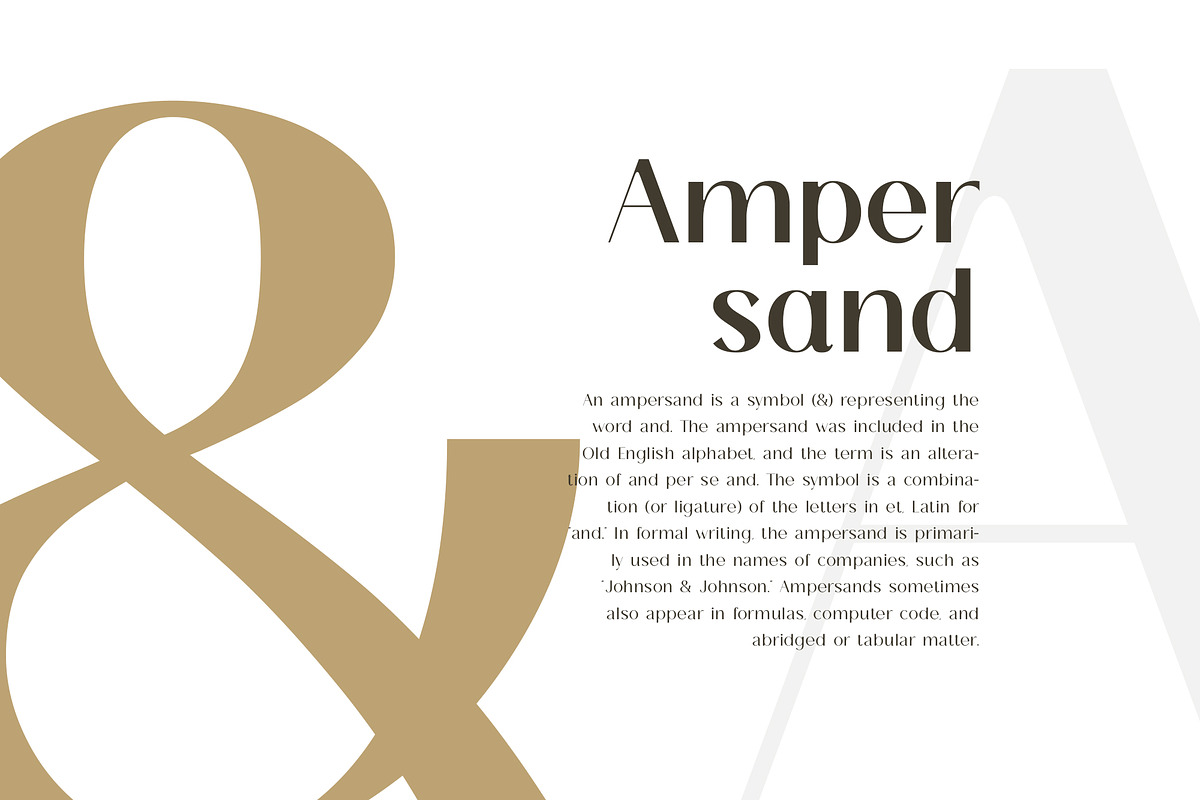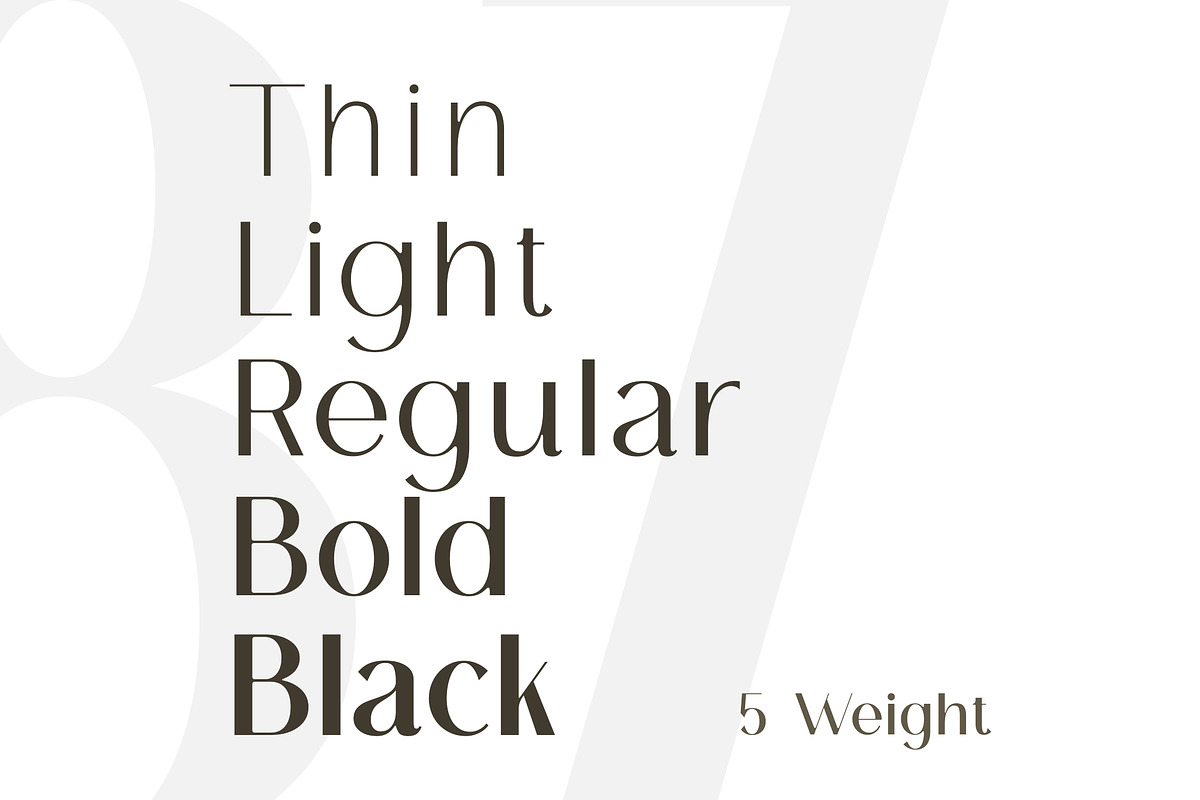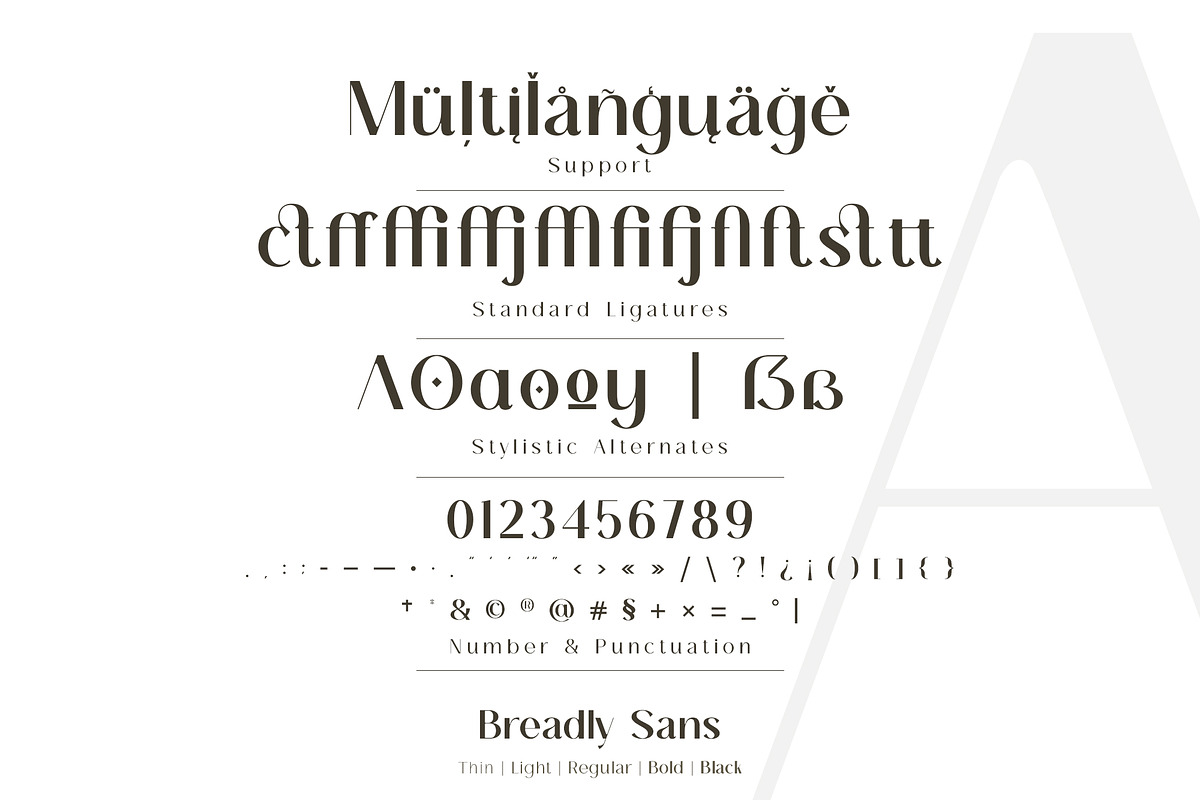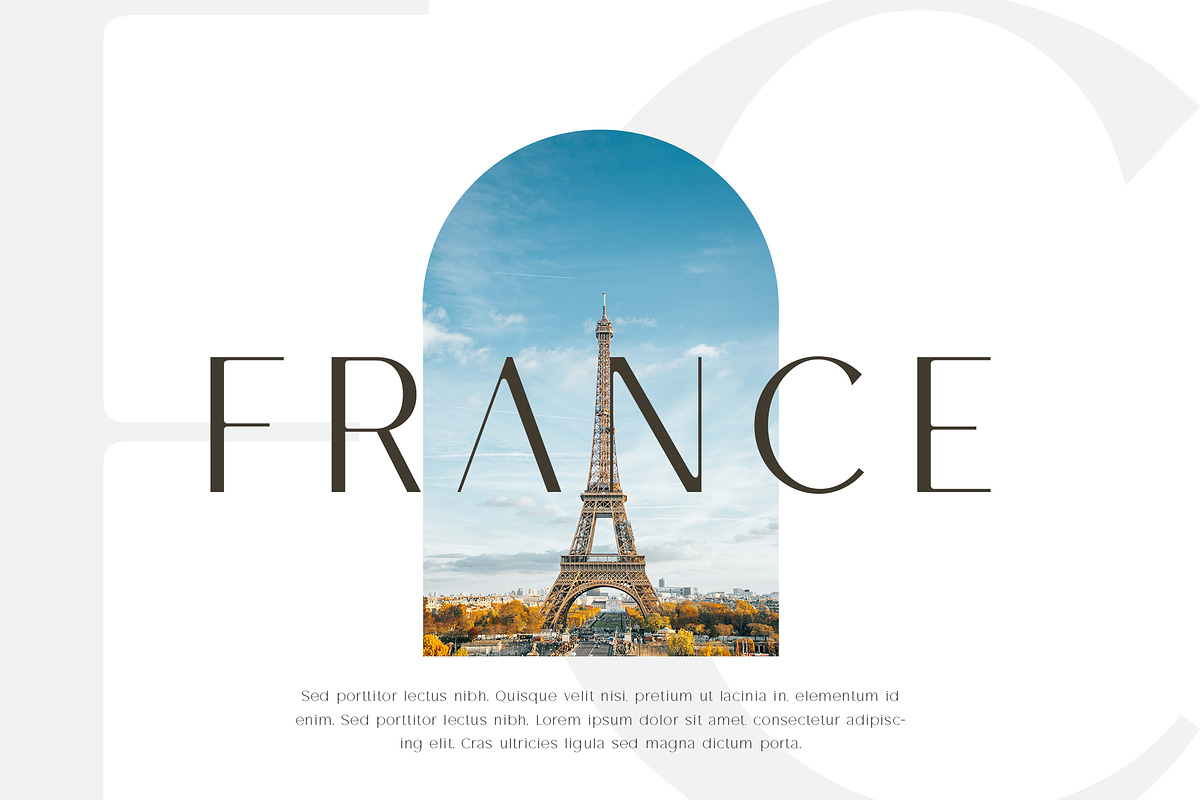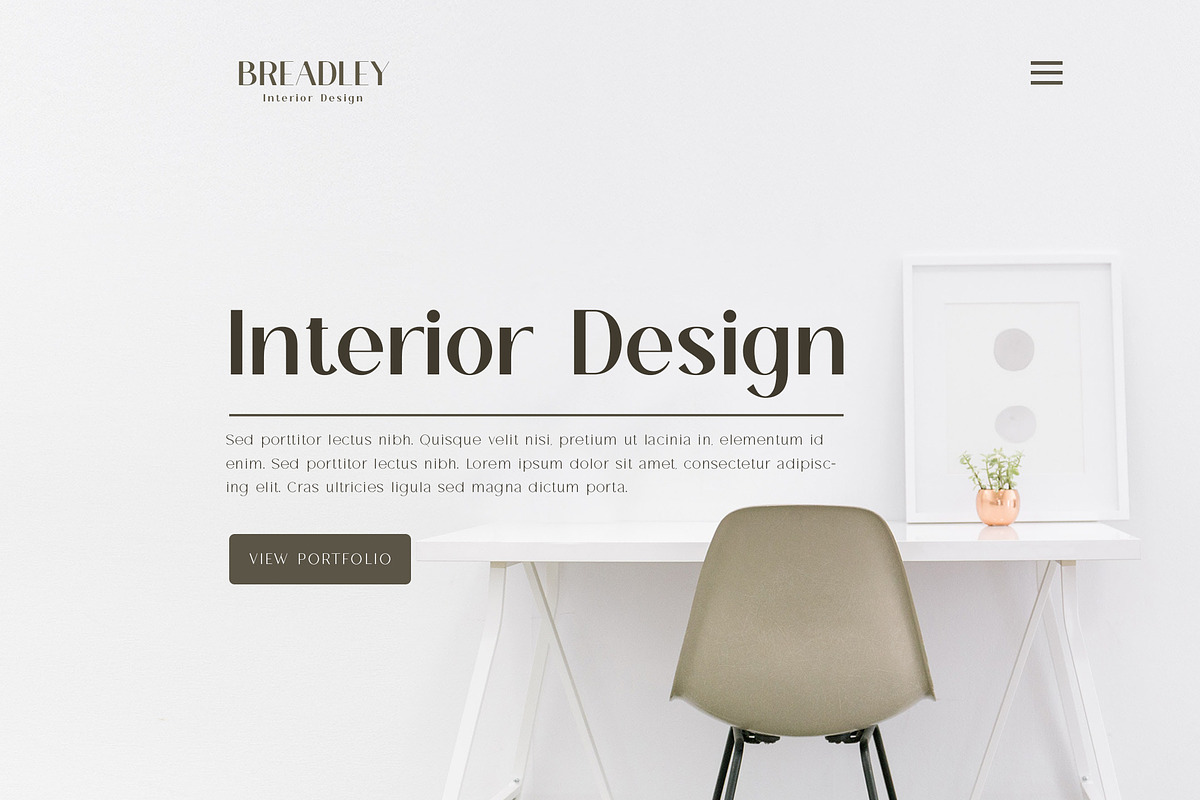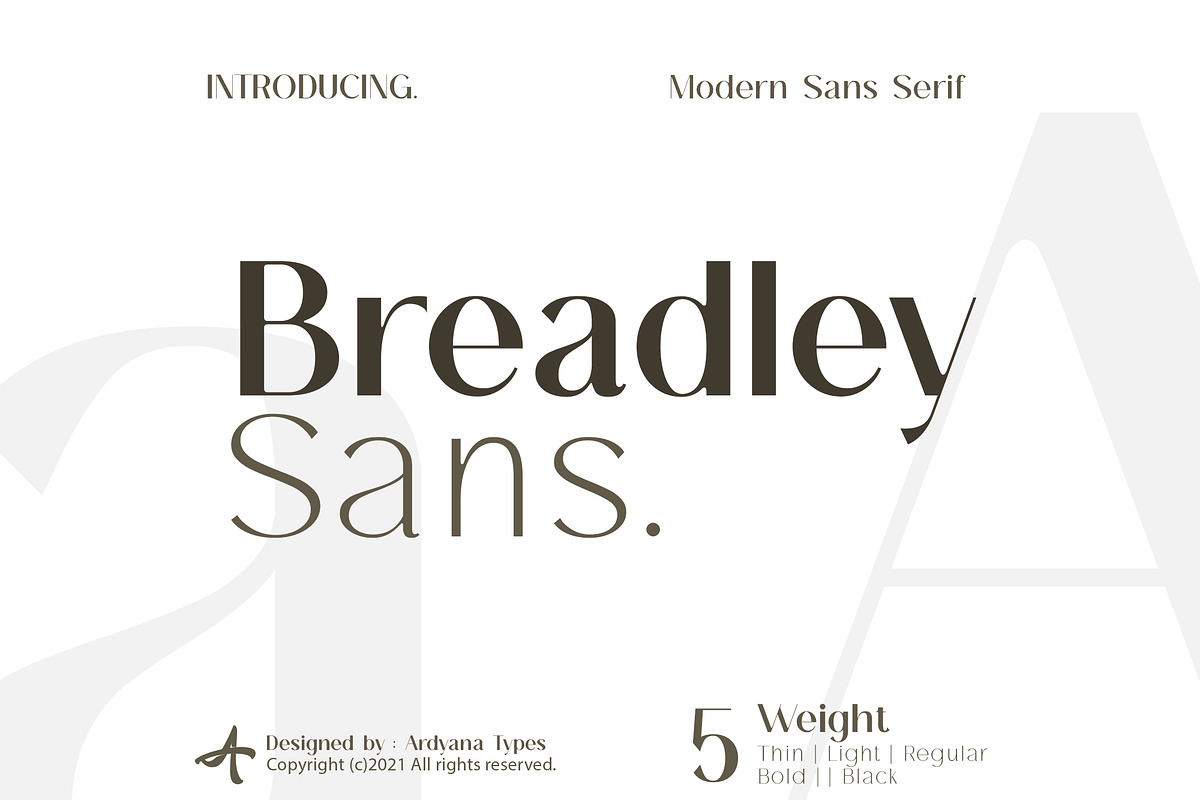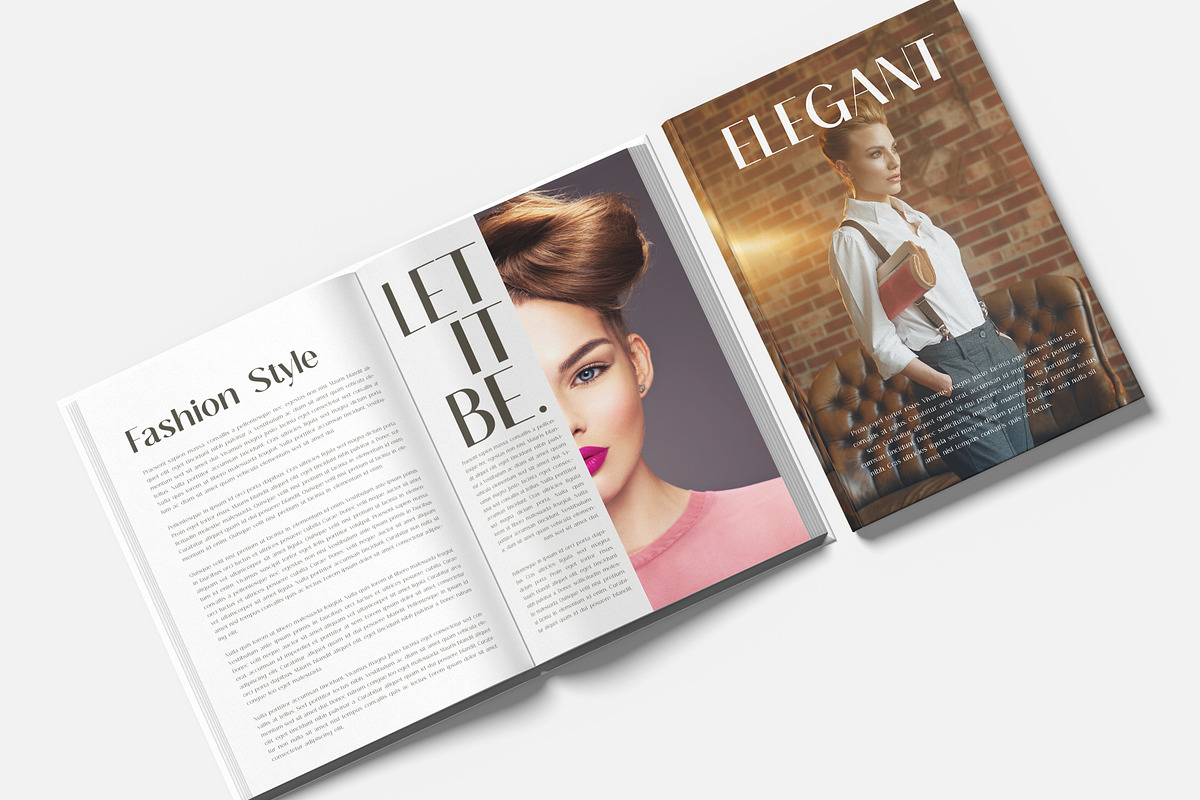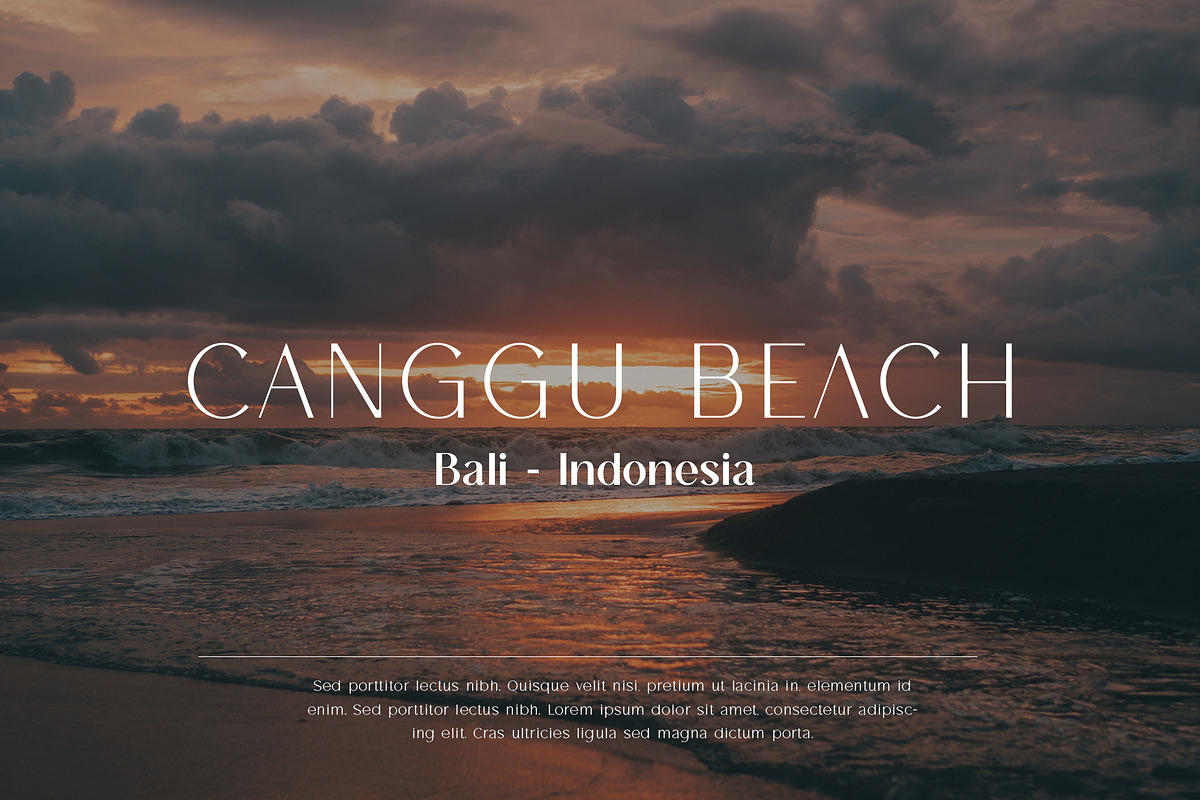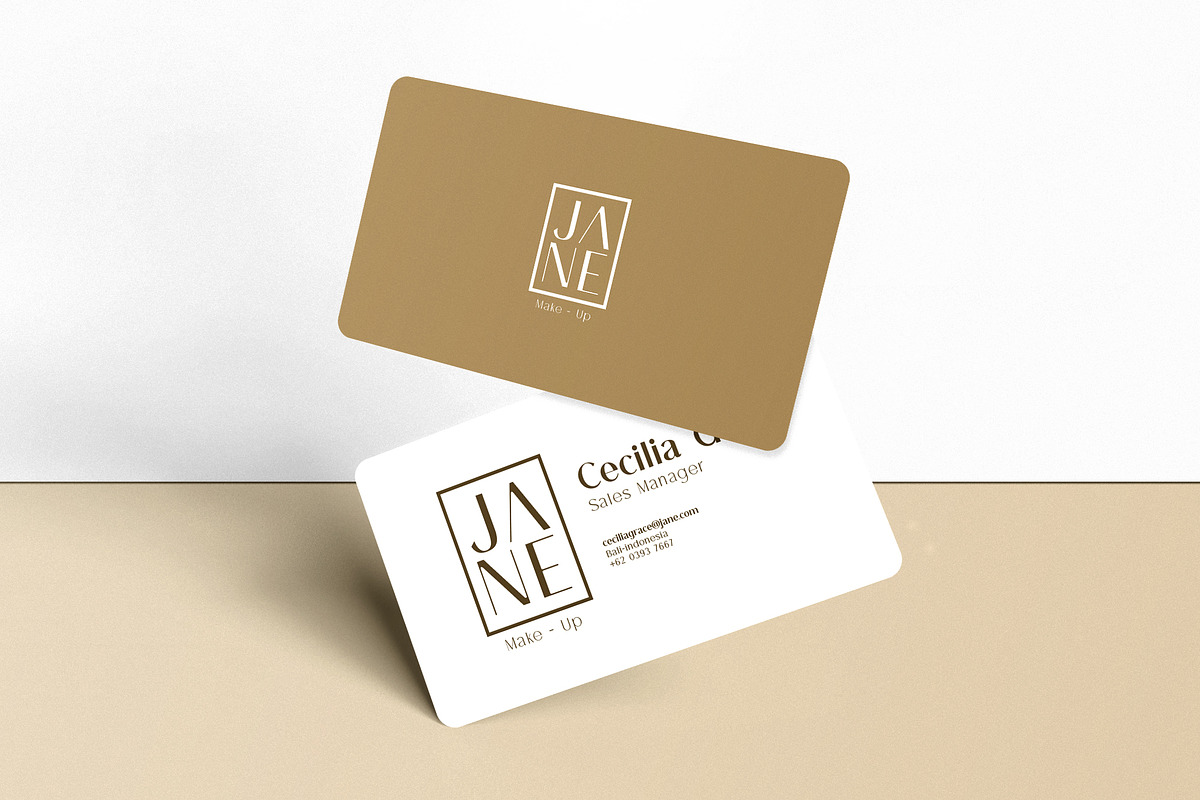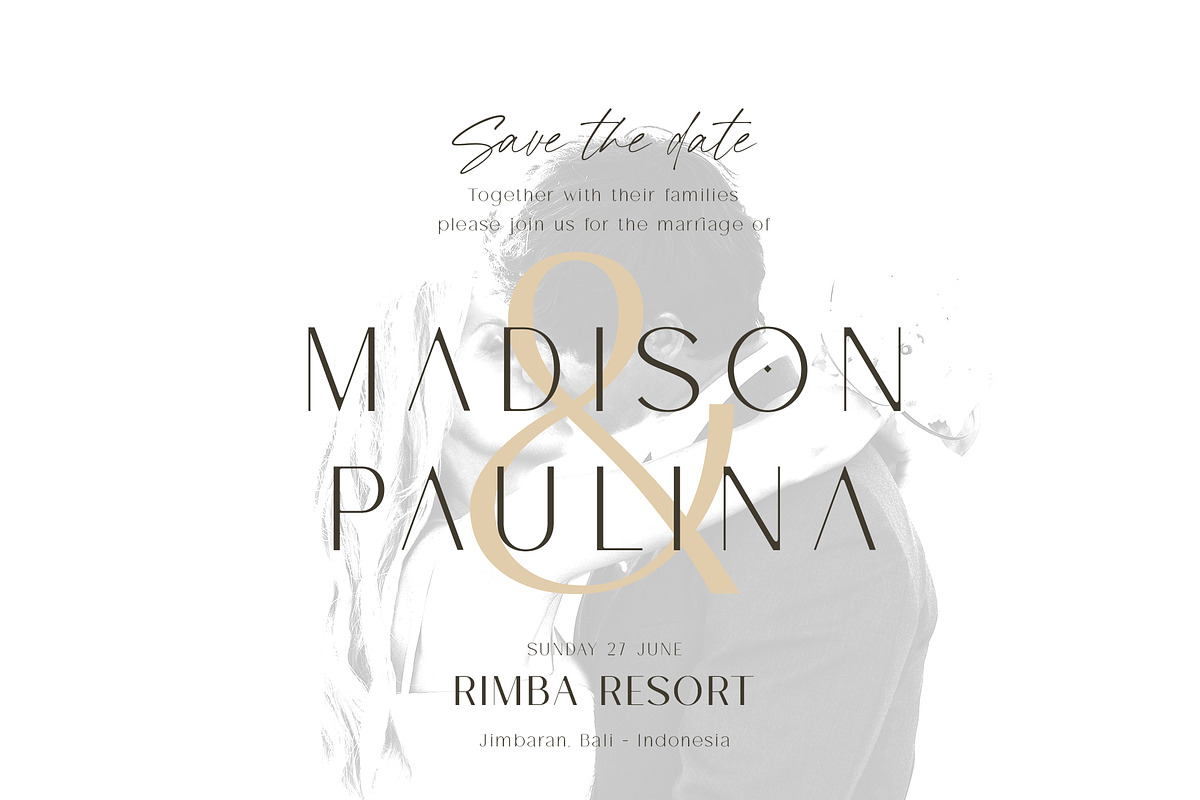
Breadley Sans - Modern Sans Serif
Introducing Breadley Sans,
a modern, elegant tagline sans serif type look. This font equipped with 5 levels of thickness, from thin to black suits your needs.
Pairs well with modern san serifs and scripts as pictured, or stands strongly on its own as a heading and brand representative for an elegant look.
This Breadley Sans overcome with the professional modern characteristic font which could bring elegant and appealing identity to your company for business utilities use like business card, name tag, uniform as brand elevation
Advertising usage? sure! This modern Breadley Sans Serif typeface obviously fit to embossed as a letter signboard or even splash it along your office with an elegant look cutting sticker.
The type shape of this elegant Breadley Sans, also stunning for books cover or magazine writing
You can view all of the available characters in the screenshots above, and you can try out the modern & elegant of Breadley Sans now for any design matter
Breadley Sans is also equipped with many languages, so it is easy to use for any country and language usage, and also equipped with Ligatures and alternative stylistic to make your design more attractive.